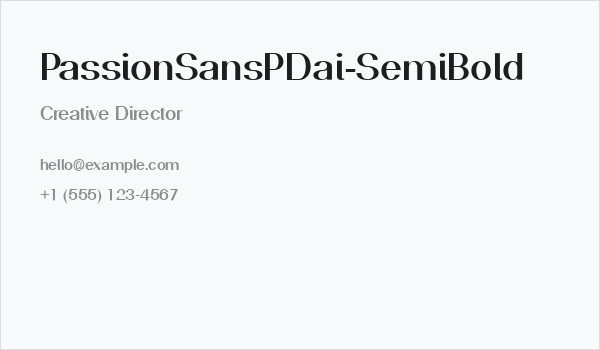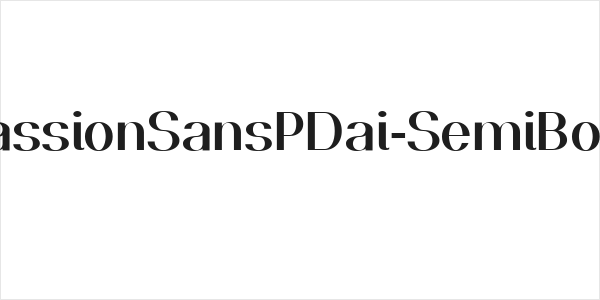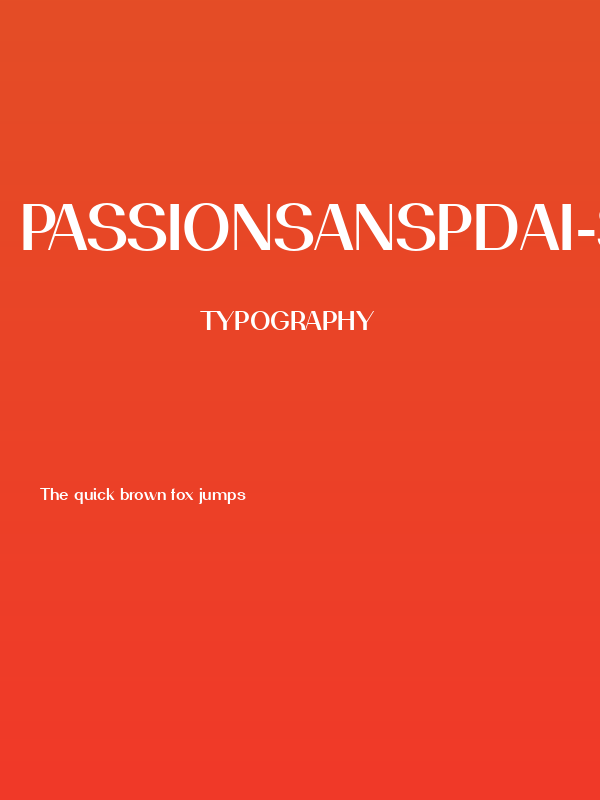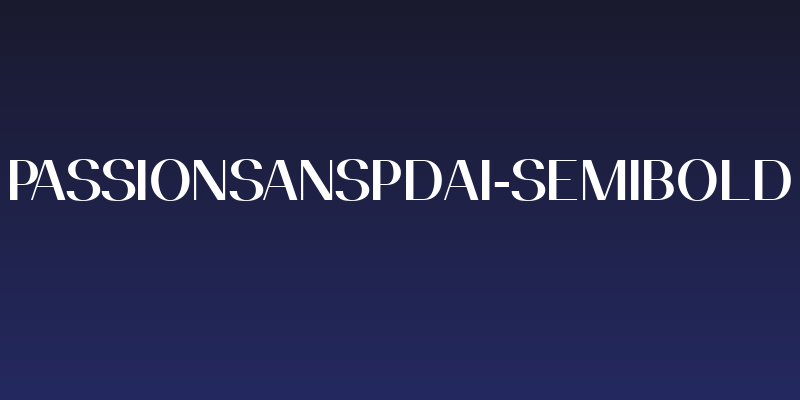
PassionSansPDai-SemiBold Font
PassionSansPDai-SemiBold Description
This font exhibits a modern and clean design with a semi-bold weight that provides a strong presence on the page. The characters are well-defined with a slight contrast in stroke thickness, giving it a dynamic and professional appearance. The uppercase letters are tall and commanding, while the lowercase letters maintain a consistent flow, making it versatile for various design needs. The numerals are clear and easy to read, and the special characters are distinct, adding to the font's overall utility. The spacing between characters is normal, ensuring readability without overcrowding.
| Proposed Projects | Ideal for branding, advertising, and editorial design projects where a strong, modern typeface is needed. |